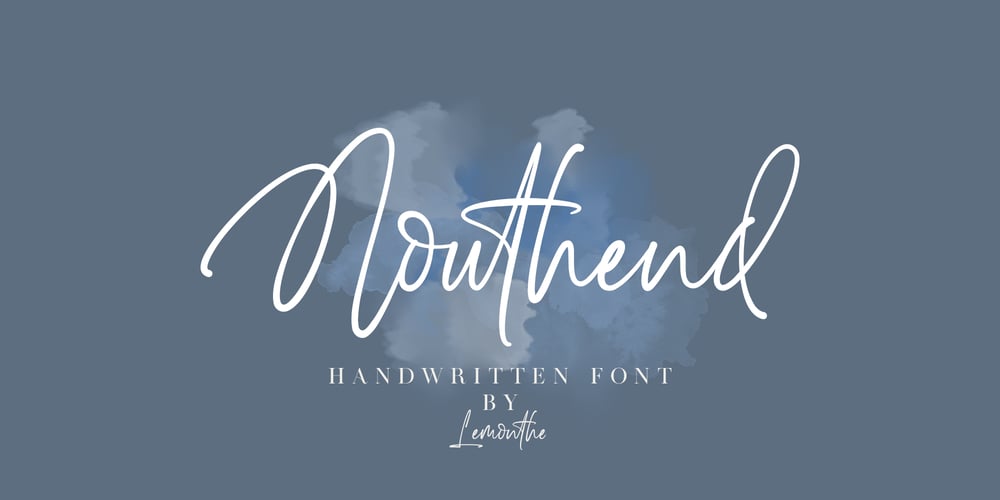
Nouthend Font Family was designed by Dwi Ahidian and published by Lemonthe. Nouthend contains 1 styles and family package options. Nouthend is a beautiful and flowing handwritten font with a modern style. This gentle font will look gorgeous on a variety of design ideas such as, logos & branding, invitation, stationery, wedding designs, product designs, labels, photography, and more!